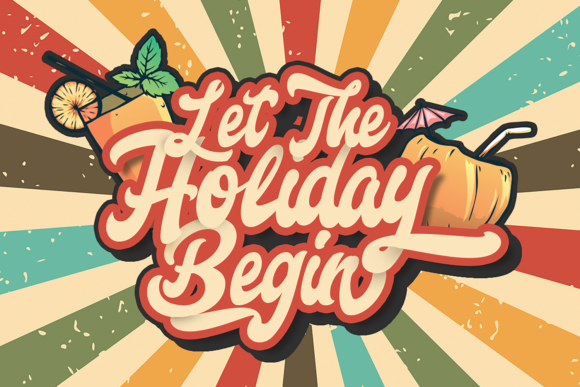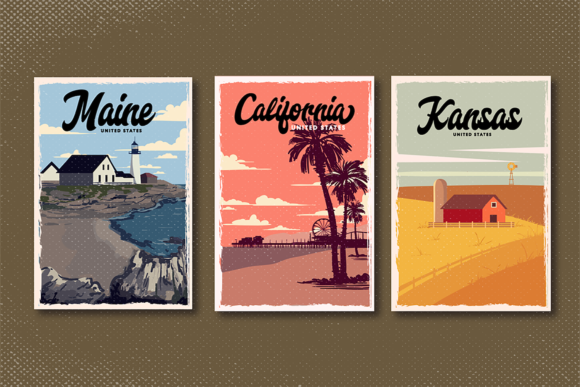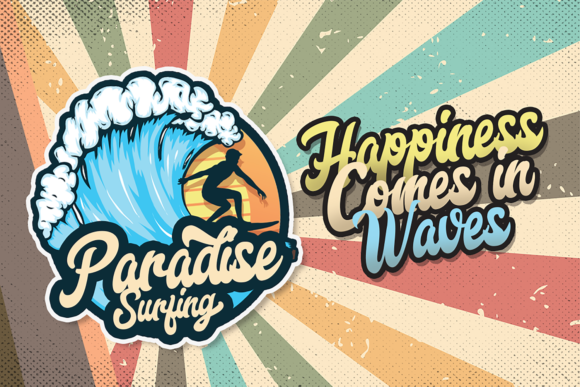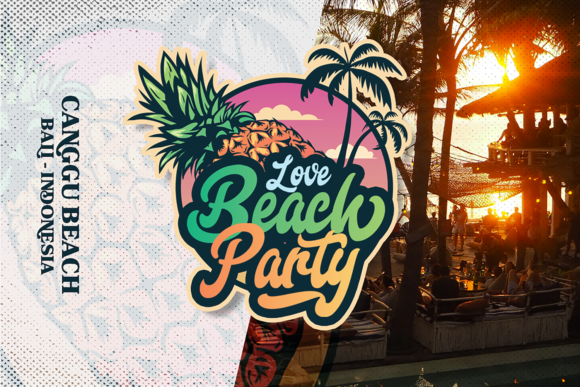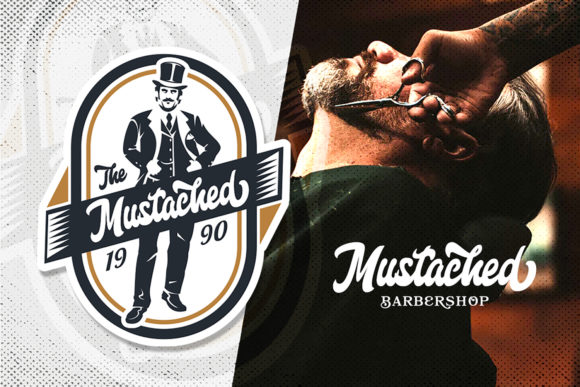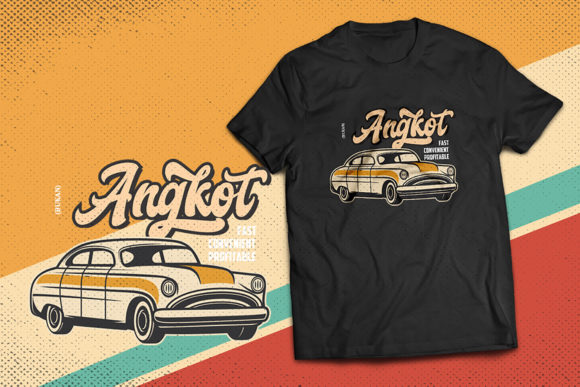
The Retro Revival: Uncovering the Fredam Theory Font
With its unique blend of classic retro style from the 80s, trendy vibes, and sporty flair, Fredam Theory instantly became my go-to font for all things retro. In this article, I’ll share my experience with this amazing font, its features, and how to make the most of it in your designs.
Honest Review: The Good, the Bad, and the Quirky
- ✨ Retro charm: Fredam Theory perfectly captures the essence of 80s retro style, making it perfect for vintage-themed projects.
- ✅ Versatility: This font is suitable for a wide range of applications, from logos and branding to clothing and accessories.
- 💥 Impactful: The bold script and groovy style make it perfect for headlines, titles, and attention-grabbing text.
- 🤔 Limited use in body text: Due to its bold nature, Fredam Theory might not be the best choice for lengthy body text. It’s best used for headings and titles.
- ⚠️ Legibility at small sizes: Be cautious when using Fredam Theory at small font sizes, as some details might become lost.
- Experiment with OpenType features, such as Stylistic Alternates, to add more flair to your text.
The Story Behind Fredam Theory
Fredam Theory was designed with the goal of capturing the essence of 80s retro style. The designer, inspired by the vibrant colors, bold graphics, and groovy vibes of the decade, aimed to create a font that would transport users back to the era of big hair, neon lights, and radical fashion.
Q: What type of projects is Fredam Theory best suited for?
A: Fredam Theory is perfect for retro-themed projects, such as logos, branding, clothing, accessories, and more.
Q: Can I use Fredam Theory for body text?
A: While possible, Fredam Theory is best used for headings and titles due to its bold nature. For body text, consider a more legible font.
Q: Does Fredam Theory support OpenType features?
A: Yes, Fredam Theory supports OpenType features, such as Stylistic Alternates, which can add more flair to your text.
Q: Is Fredam Theory suitable for digital use?
A: Absolutely! Fredam Theory can be used for both print and digital projects, from social media graphics to website headers.